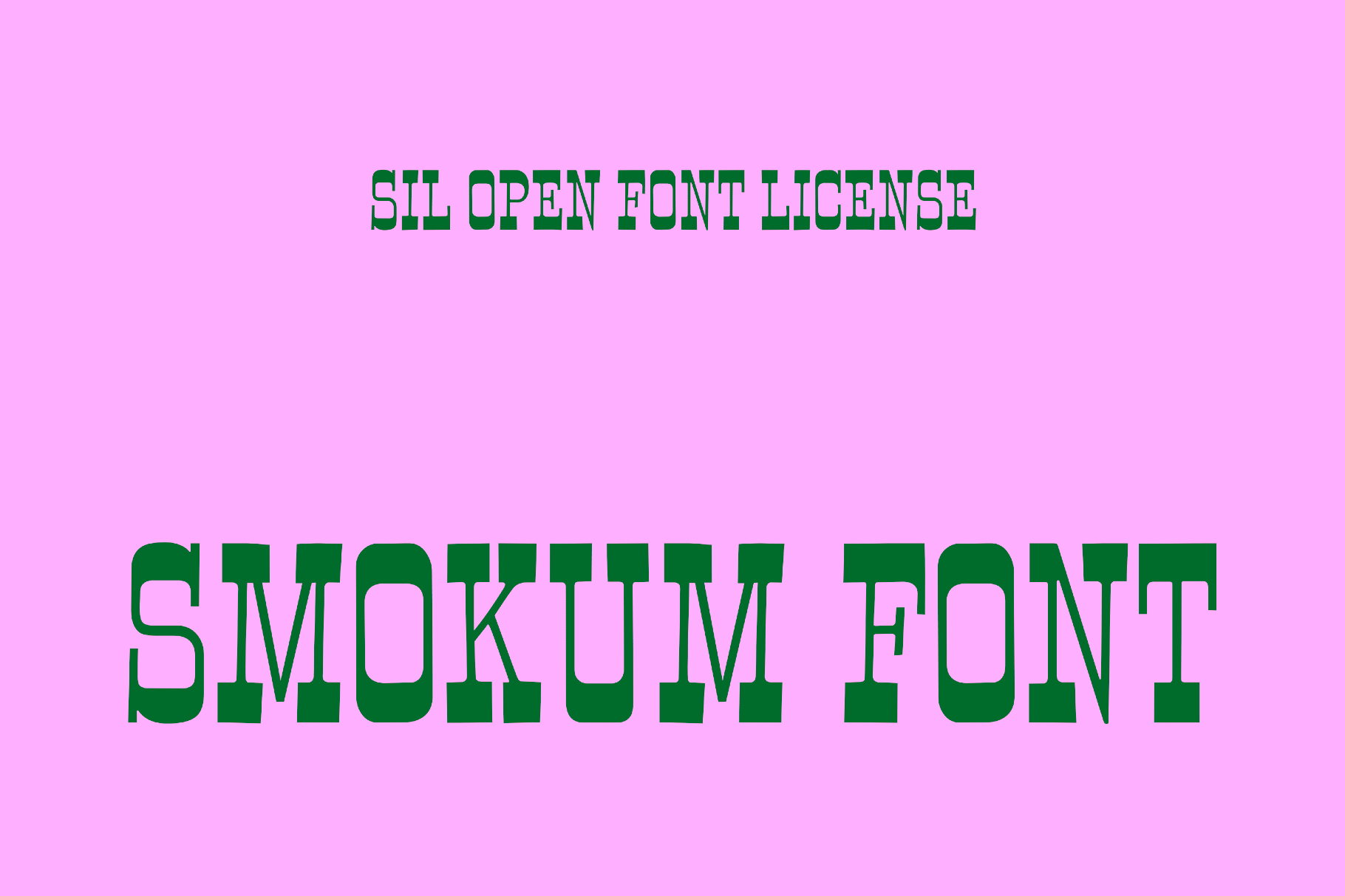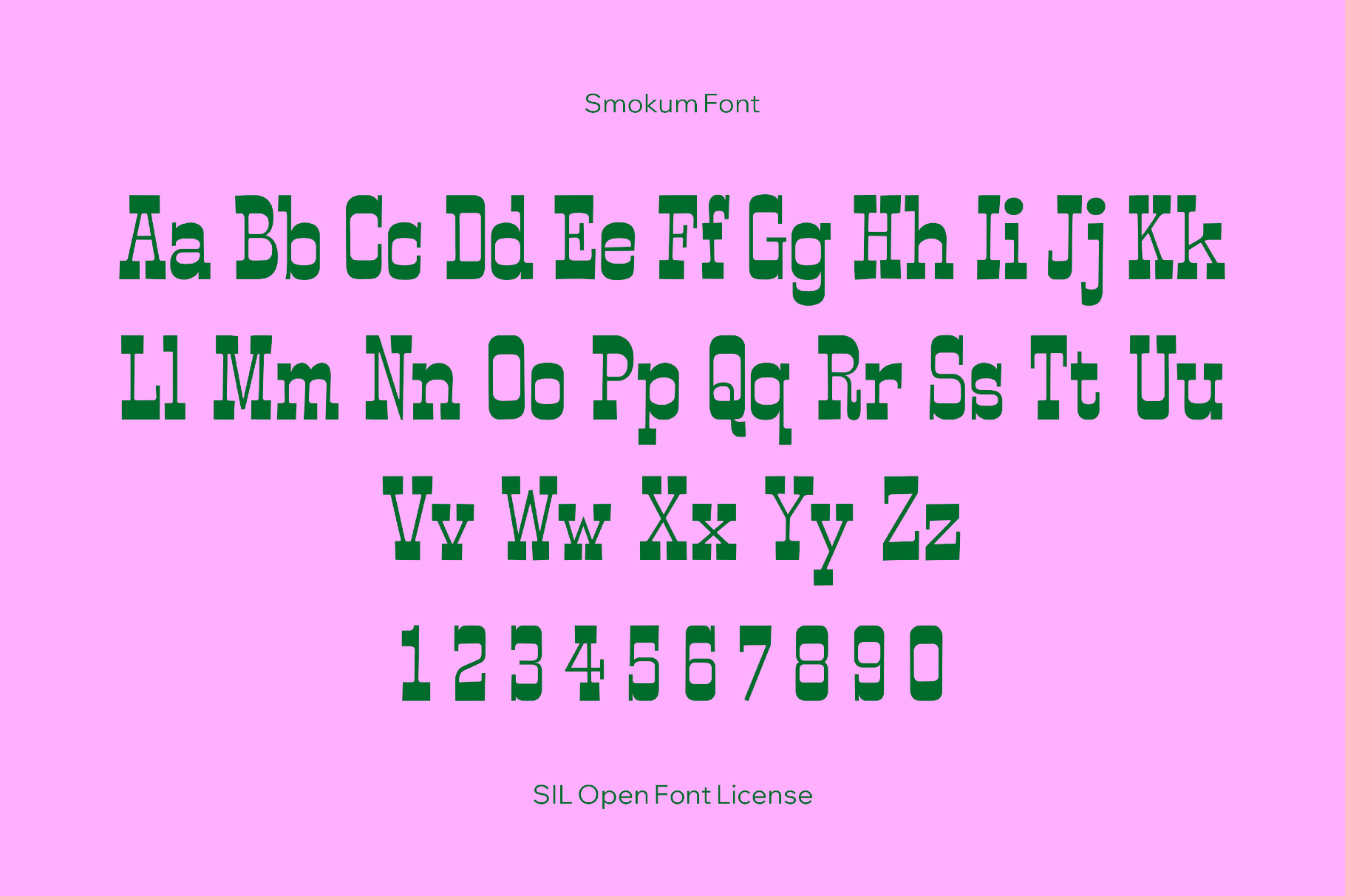
Smokum Font
Smokum
This Western wood-type display comes with a loose, sign-painted attitude, built from chunky block serifs, narrow curves, and tall condensed forms. You can use it for saloon-style branding, posters, packaging labels, festival promos, game or film titles, and merchandise graphics. It also works well for signage, web and app headers that want theatrical Americana.